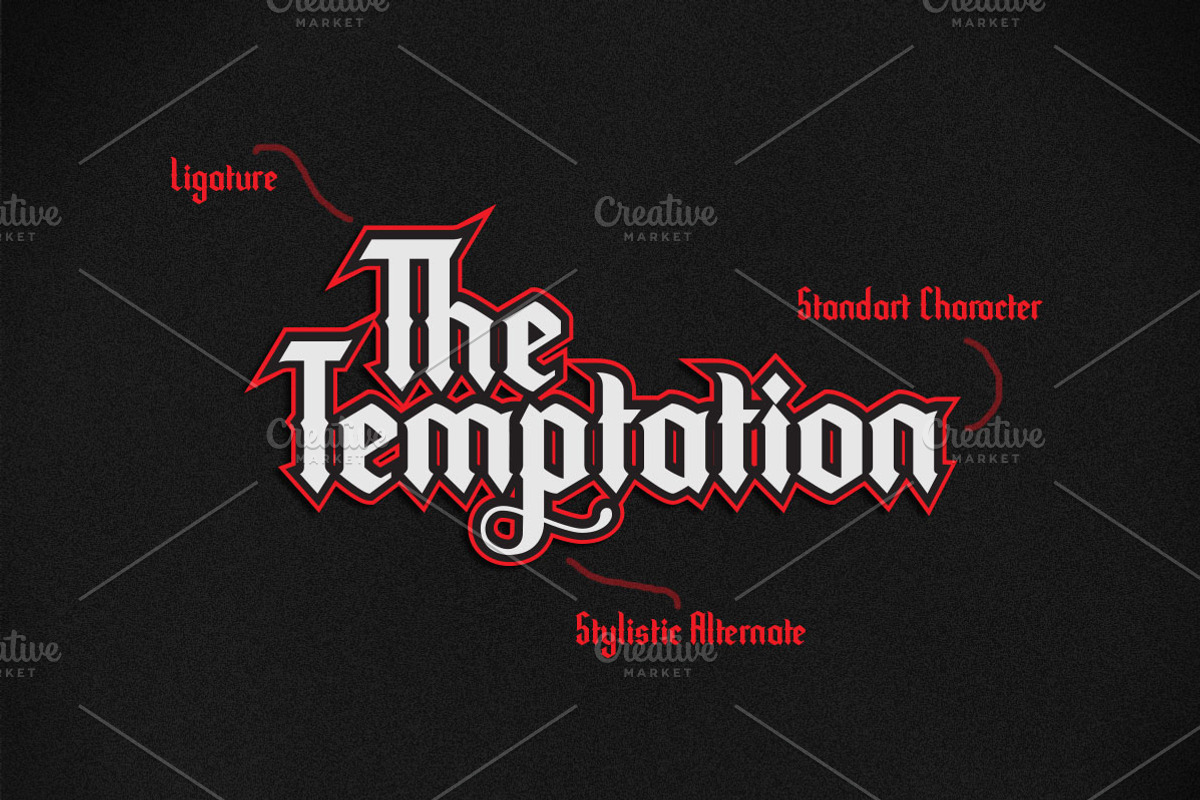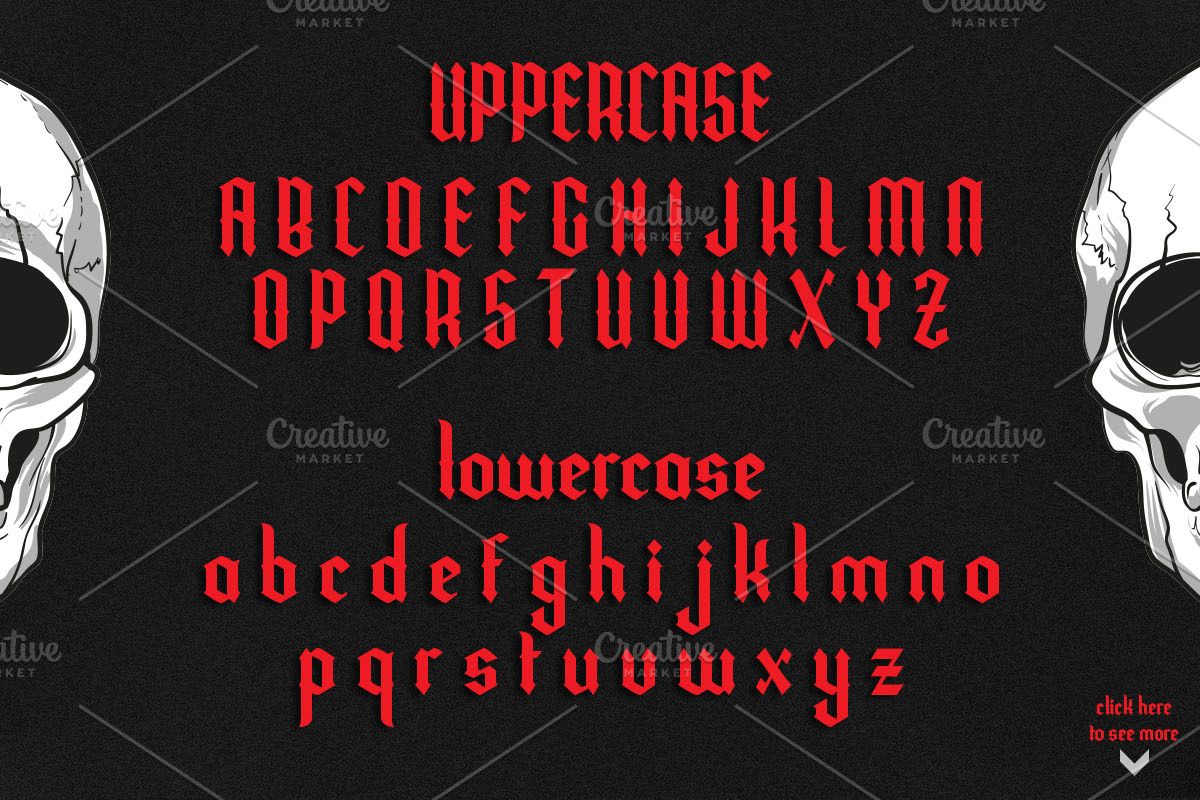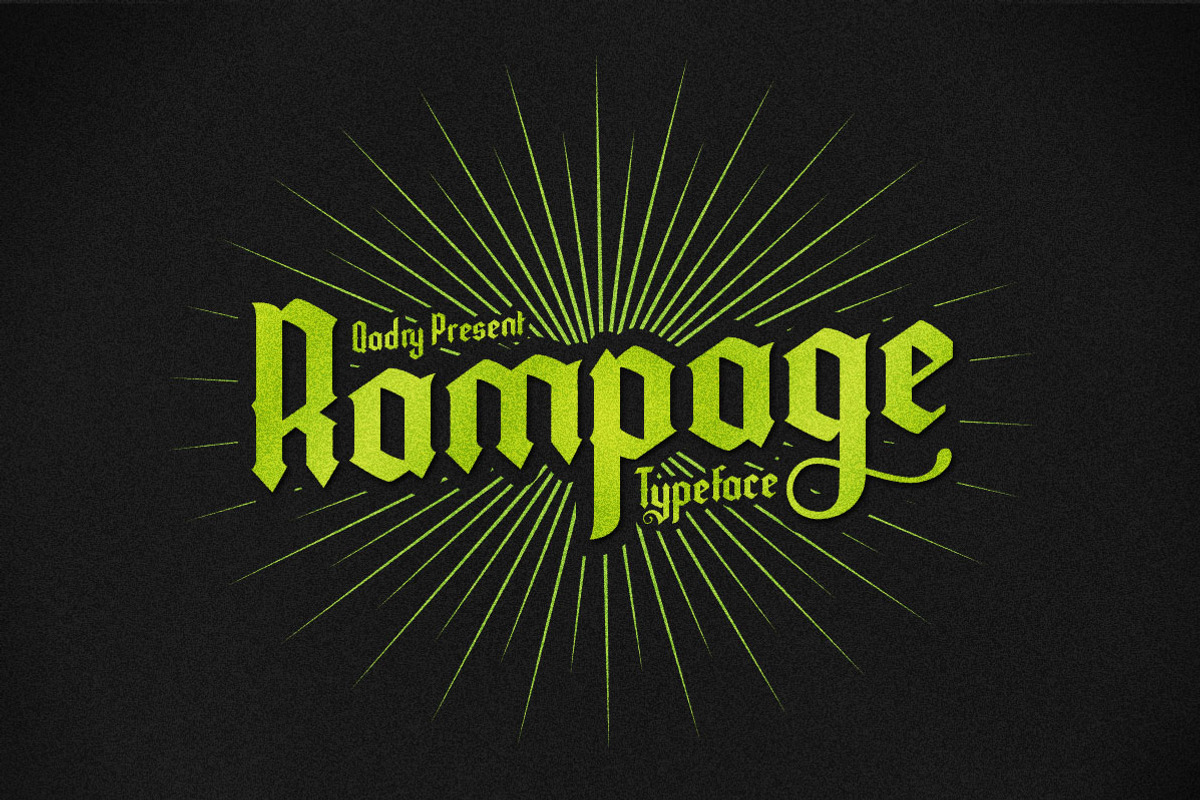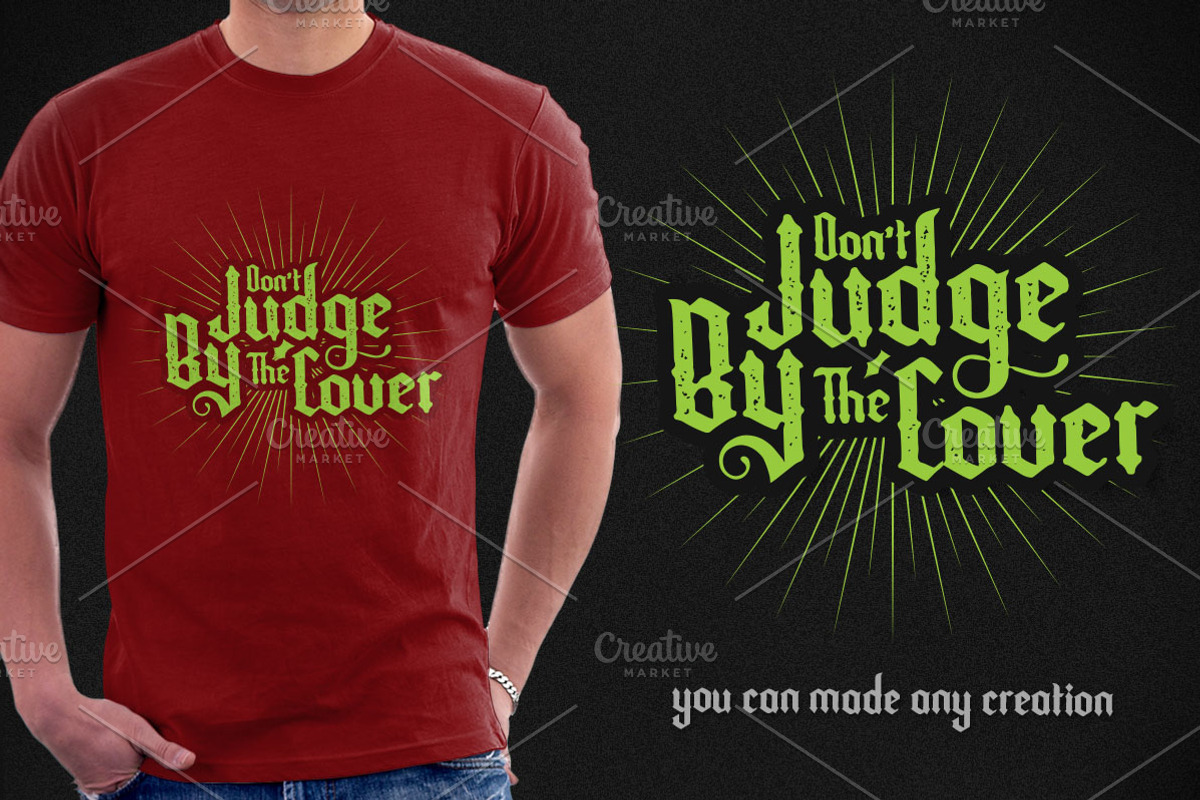
Rampage Font
Rampage Font by Qadry is a font selected for branding, posters, packaging, typography.
Why Rampage Font is worth a look
Rampage Font by Qadry fits naturally into Branding, posters, packaging, typography.